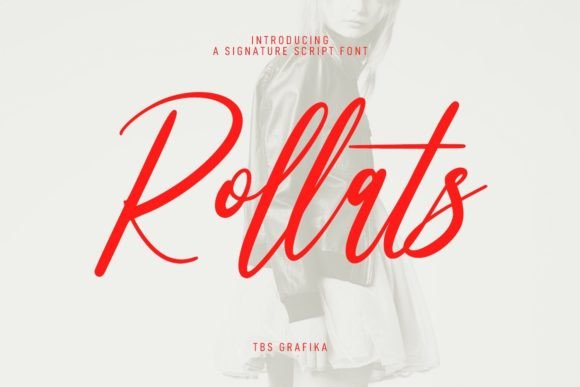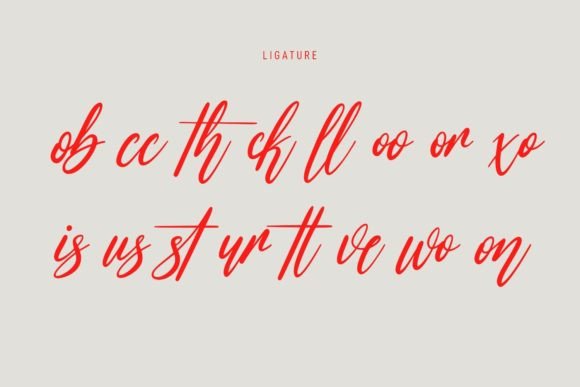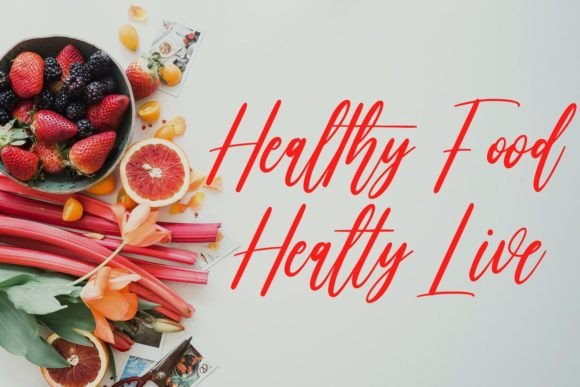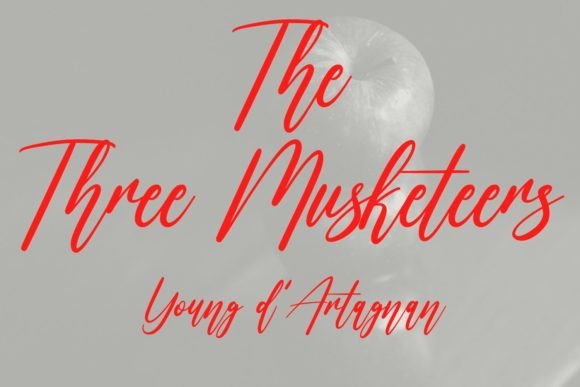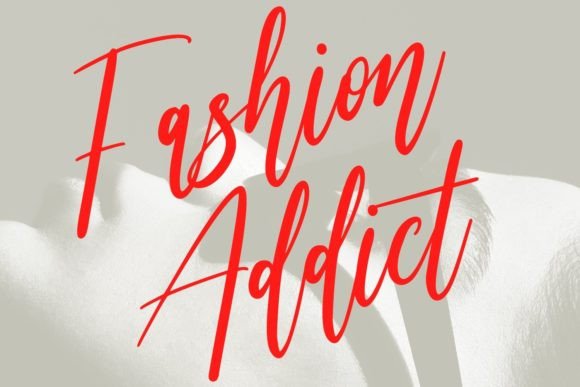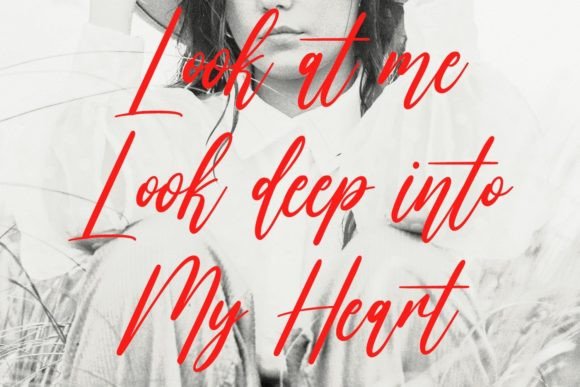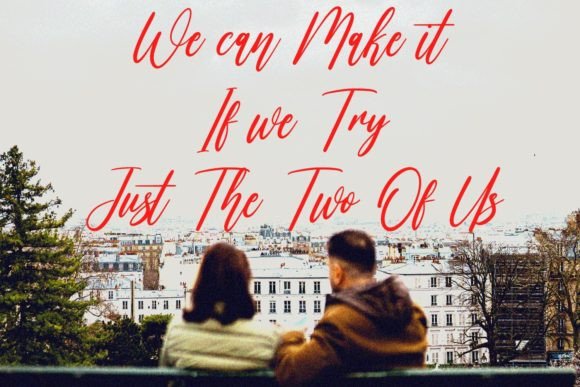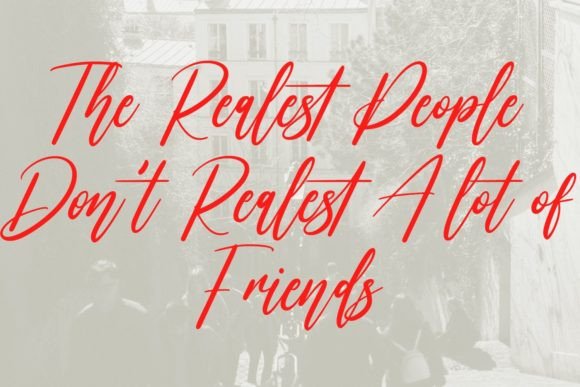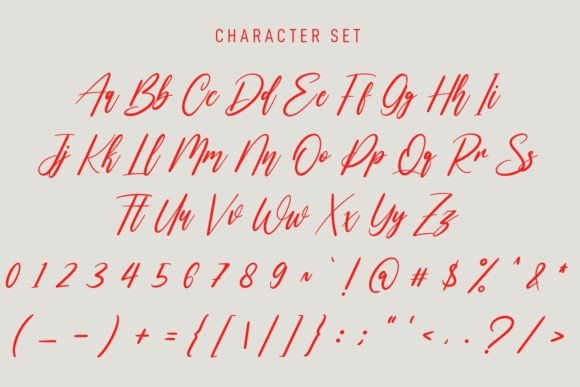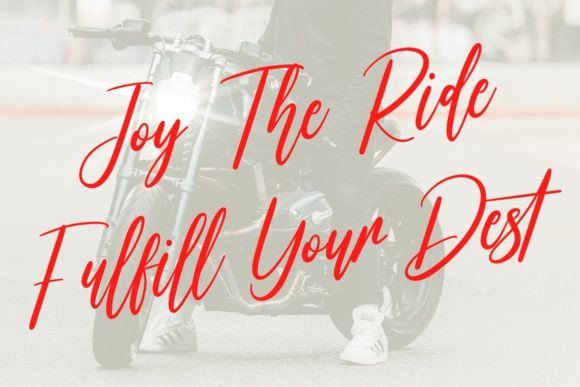
Rollats Font
About Rollats Font
Rollats is not just a font; it’s an expressive signature script that brings a unique touch to your design projects. Characterized by high-contrast strokes and long, flowing connections, this font exudes a playful charm enriched with ligatures and alternates. Its versatility knows no bounds, making it well-suited for various applications such as logo design, social media graphics, movie titles, book titles, and both short and long text passages.
The high-contrast strokes of Rollats impart a sense of dynamism, giving your text a lively and engaging appearance. The long, connected characters create a fluidity that adds a touch of elegance to your designs. Whether you’re aiming for a bold and attention-grabbing look or a more refined and sophisticated feel, Rollats is equipped to deliver.
One of the notable features of this font is its capacity to shine across different design contexts. From the impactful first impression of a logo to the readability required for longer texts, Rollats proves its versatility. It effortlessly adapts to the demands of various design projects, making it a valuable asset in your creative toolkit.
Rollats is particularly well-suited for social media graphics, where its expressive nature can help your content stand out in a crowded digital landscape. Movie and book titles benefit from its dynamic flair, setting the tone for the narrative within. Whether used in isolation or as a secondary text font alongside sans or serif typefaces, Rollats seamlessly integrates into your design compositions.
Embrace the possibilities of Rollats to create stunning and memorable designs. Its playful yet sophisticated character makes it an ideal choice for those looking to infuse their projects with personality and flair. Elevate your design game and leave a lasting impression with the expressive charm of Rollats.